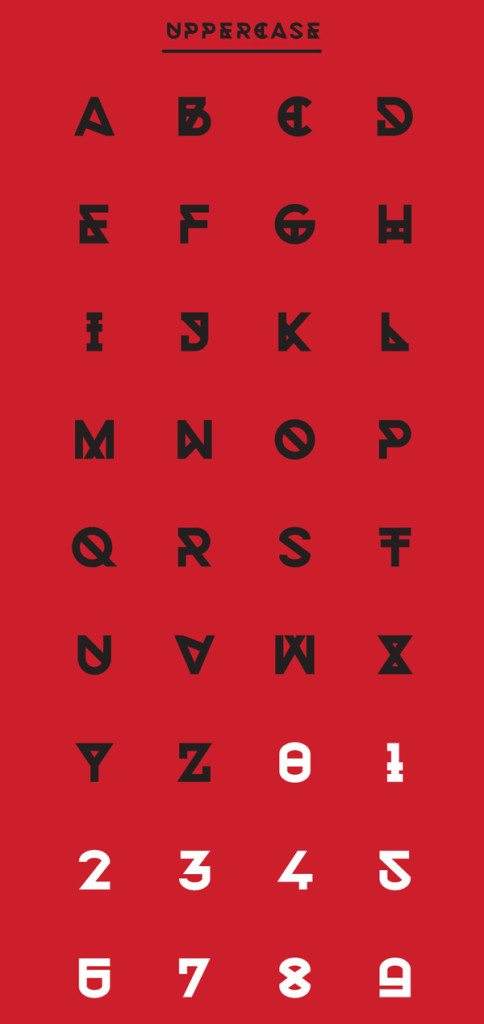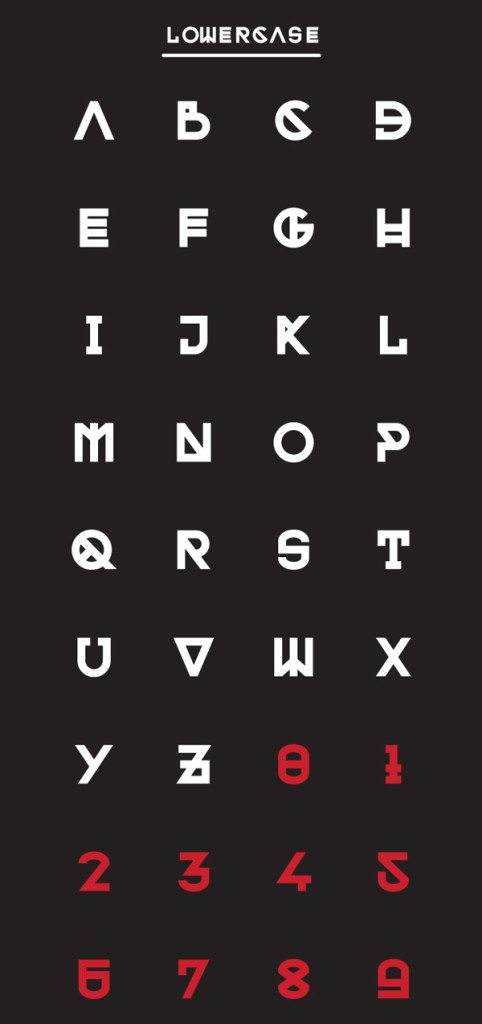
kontanter font
Free Font Of The Day #108 – Kontanter Font
Kontanter Font
The Font is a free experimental monospaced display font.Kontanter is loosely based on Gotham Bold. This font feature characters to support many European Languages with alternate letter options in lowercase. Designed by Kash Singh.